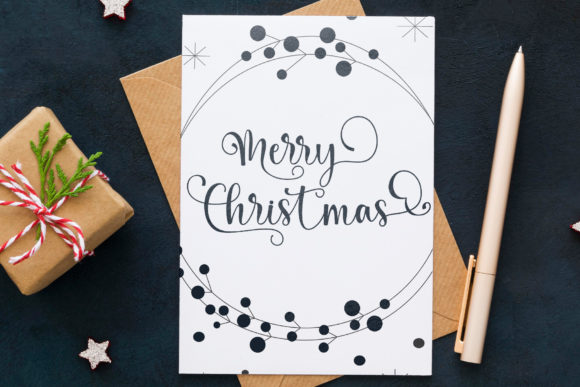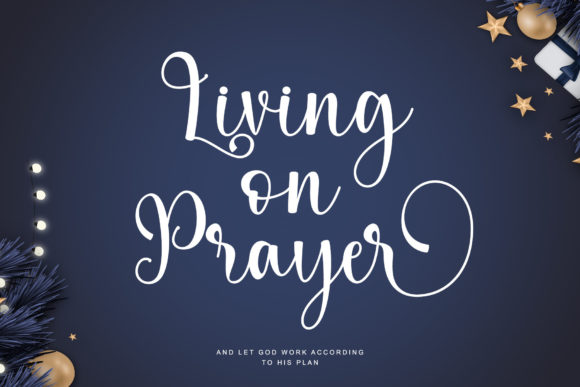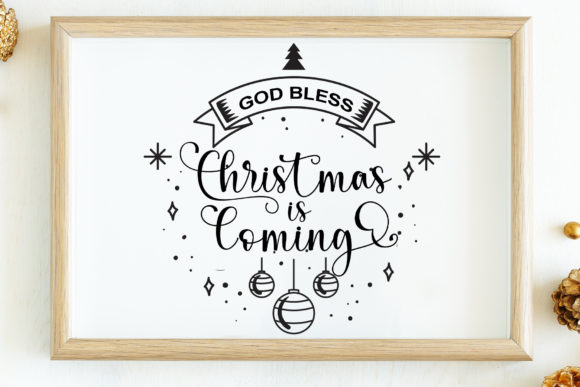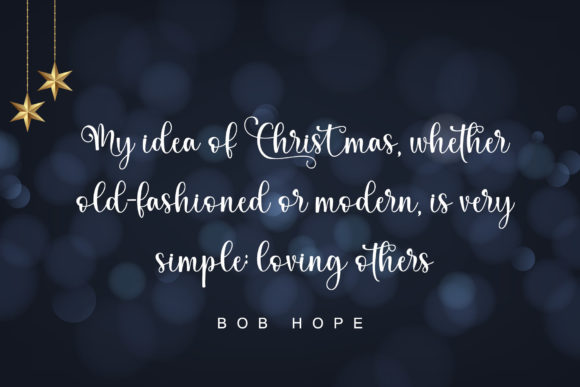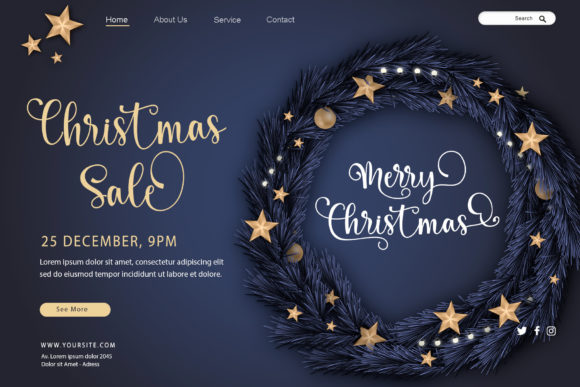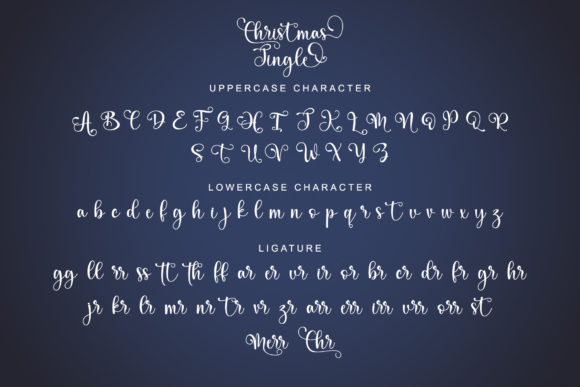
Christmas Jingle Font: A Whimsical Script Font for Your Holiday Designs
Are you looking for a font that captures the essence of the holiday season? Look no further than Christmas Jingle, a whimsical script font that is sure to add a touch of magic to your designs. With its relaxed theme and lovely style, this font is perfect for designers and crafters who want to create festive and fun projects.
What is Christmas Jingle Font?
Christmas Jingle is a script font that features a unique and playful design. Its relaxed theme makes it perfect for creating holiday-themed projects, such as Christmas cards, gift tags, and festive posters. The font is PUA encoded, which means that you can access all of the glyphs and swashes with ease, making it easy to customize your designs.
Features of Christmas Jingle Font
- Whimsical Design: Christmas Jingle has a playful and whimsical design that is sure to add a touch of fun to your projects.
- Relaxed Theme: The font’s relaxed theme makes it perfect for creating holiday-themed projects that are casual and laid-back.
- PUA Encoded: The font is PUA encoded, making it easy to access all of the glyphs and swashes.
- Lovely Style: The font features a lovely style that is sure to make your projects stand out.
Uses for Christmas Jingle Font
Christmas Jingle is a versatile font that can be used for a variety of projects, including:
- Christmas Cards: Create festive and fun Christmas cards with Christmas Jingle.
- Gift Tags: Add a personal touch to your gifts with custom gift tags featuring Christmas Jingle.
- Festive Posters: Create eye-catching posters for your holiday events with Christmas Jingle.
- Social Media Graphics: Use Christmas Jingle to create festive and fun social media graphics.
Tips for Using Christmas Jingle Font
Here are a few tips for using Christmas Jingle:
- Experiment with Different Sizes: Christmas Jingle looks great in a variety of sizes, so don’t be afraid to experiment.
- Pair with Other Fonts: Pair Christmas Jingle with other fonts to create a unique and interesting look.
- Use the Swashes: Take advantage of the font’s swashes to add a touch of elegance to your designs.
Christmas Jingle is a whimsical script font that is sure to add a touch of magic to your holiday designs. With its relaxed theme and lovely style, this font is perfect for designers and crafters who want to create festive and fun projects. Whether you’re creating Christmas cards, gift tags, or festive posters, Christmas Jingle is a great choice.